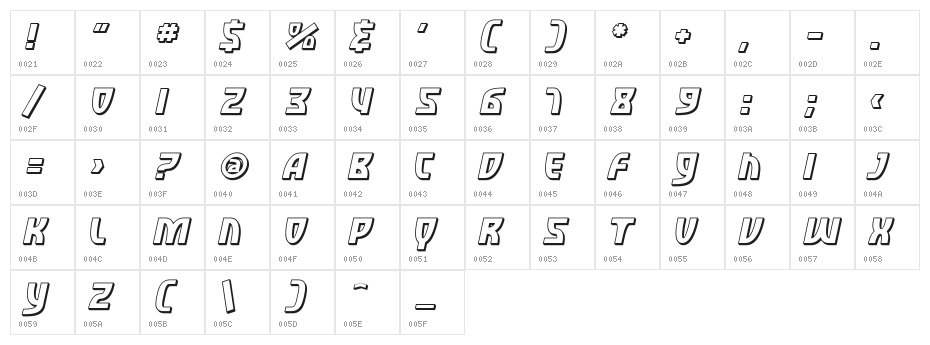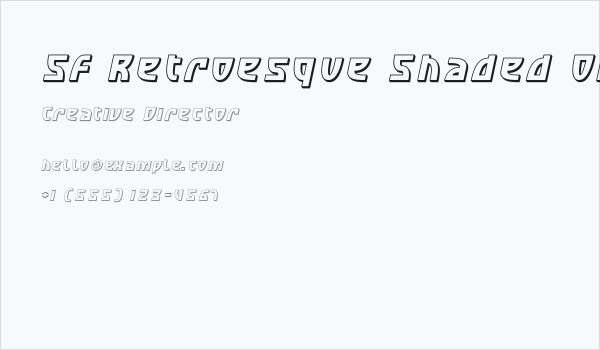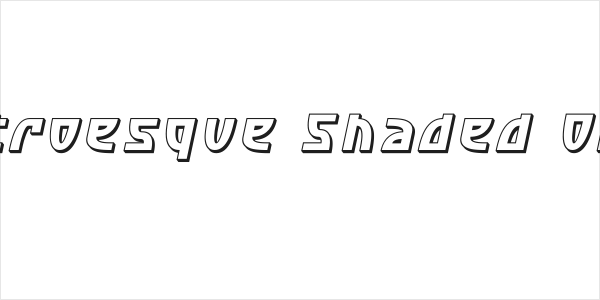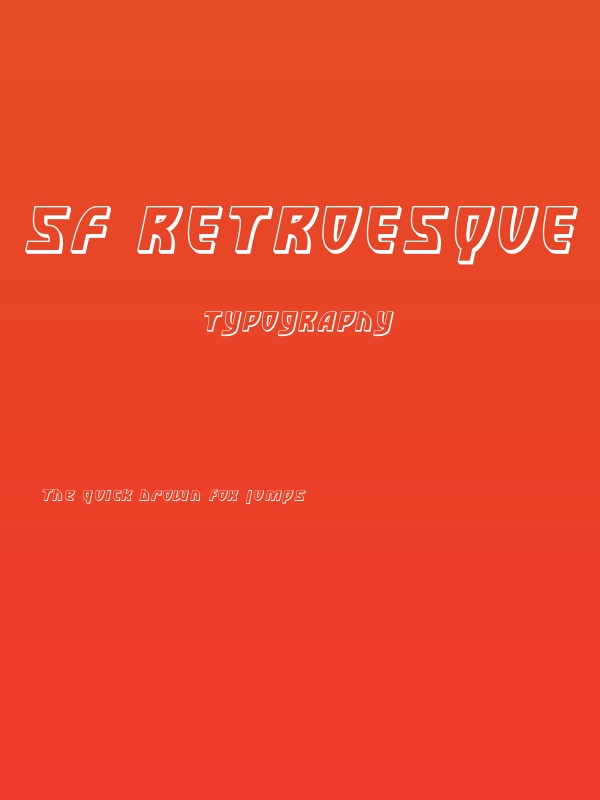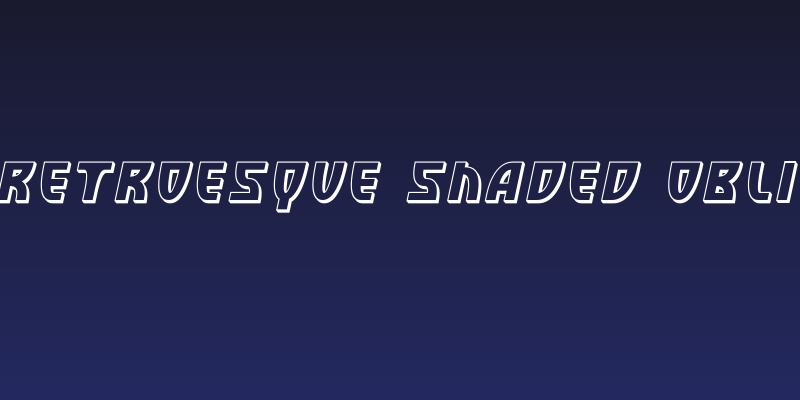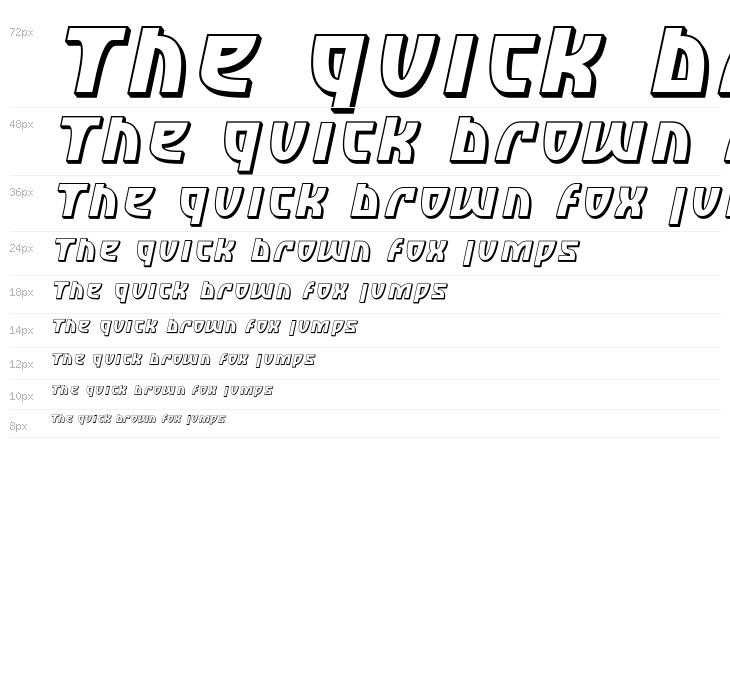
SF Retroesque Shaded Oblique Font
SF Retroesque Shaded Oblique Description
This font features a bold, retro-inspired design with a distinct oblique slant, giving it a dynamic and energetic appearance. The letters are outlined, providing a shaded effect that enhances its three-dimensional look. The geometric shapes are consistent throughout, with sharp angles and clean lines that contribute to its modern yet nostalgic feel. The uppercase and lowercase letters maintain a uniform style, and the numerals and special characters are designed to match the overall aesthetic. This font is ideal for projects that require a vintage touch with a contemporary twist.
| Overall Style | Retro, Modern |
| Proposed Projects | Perfect for retro-themed posters, vintage branding, and eye-catching headlines. |